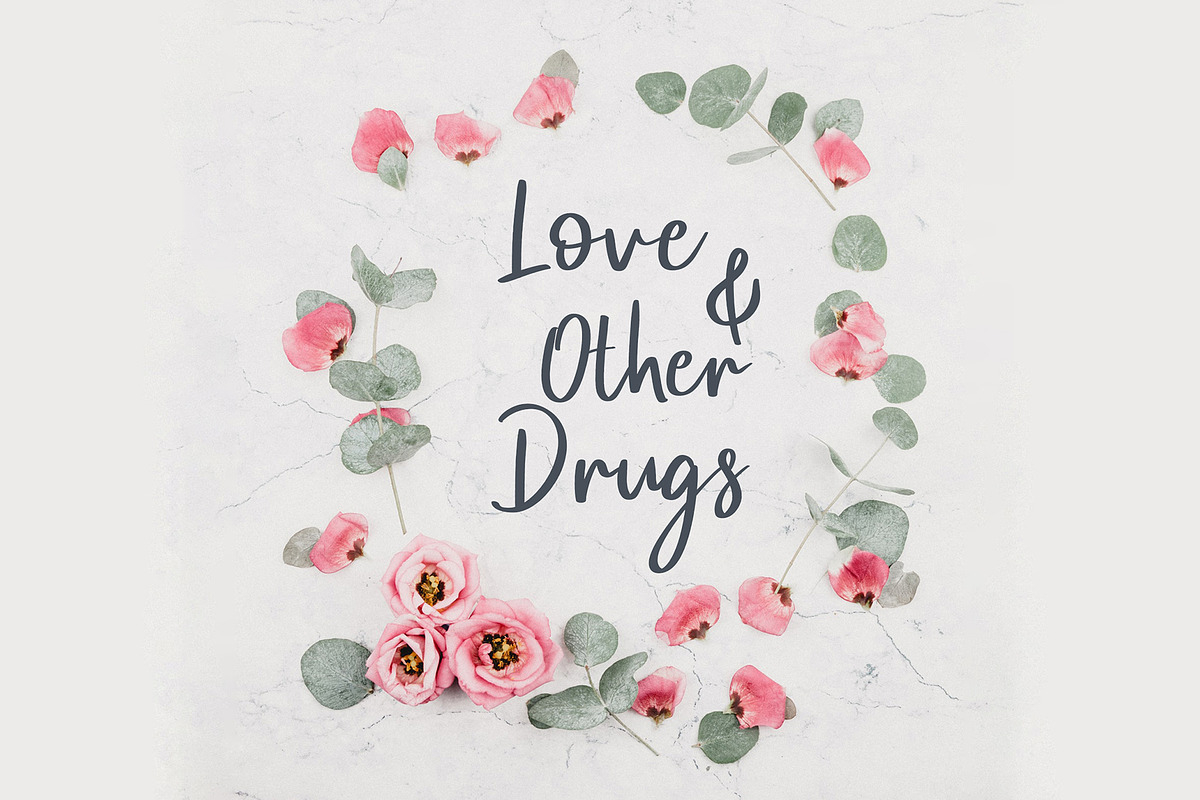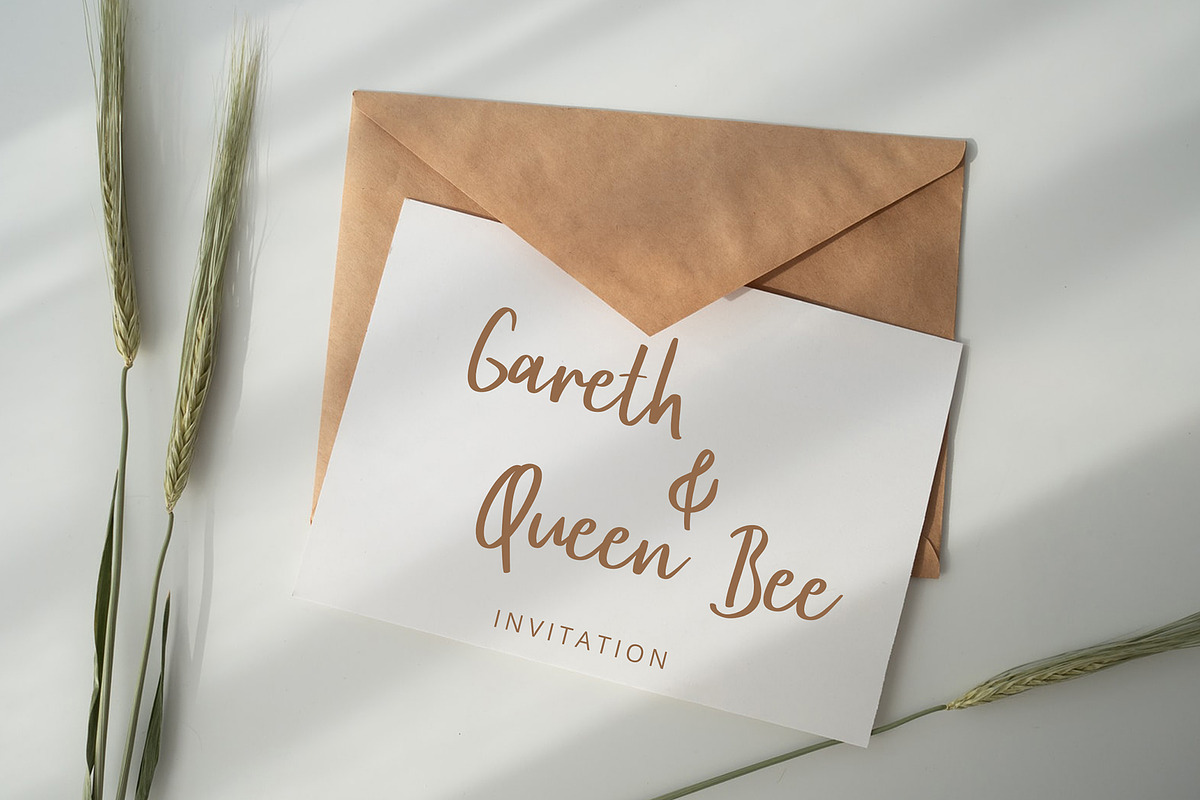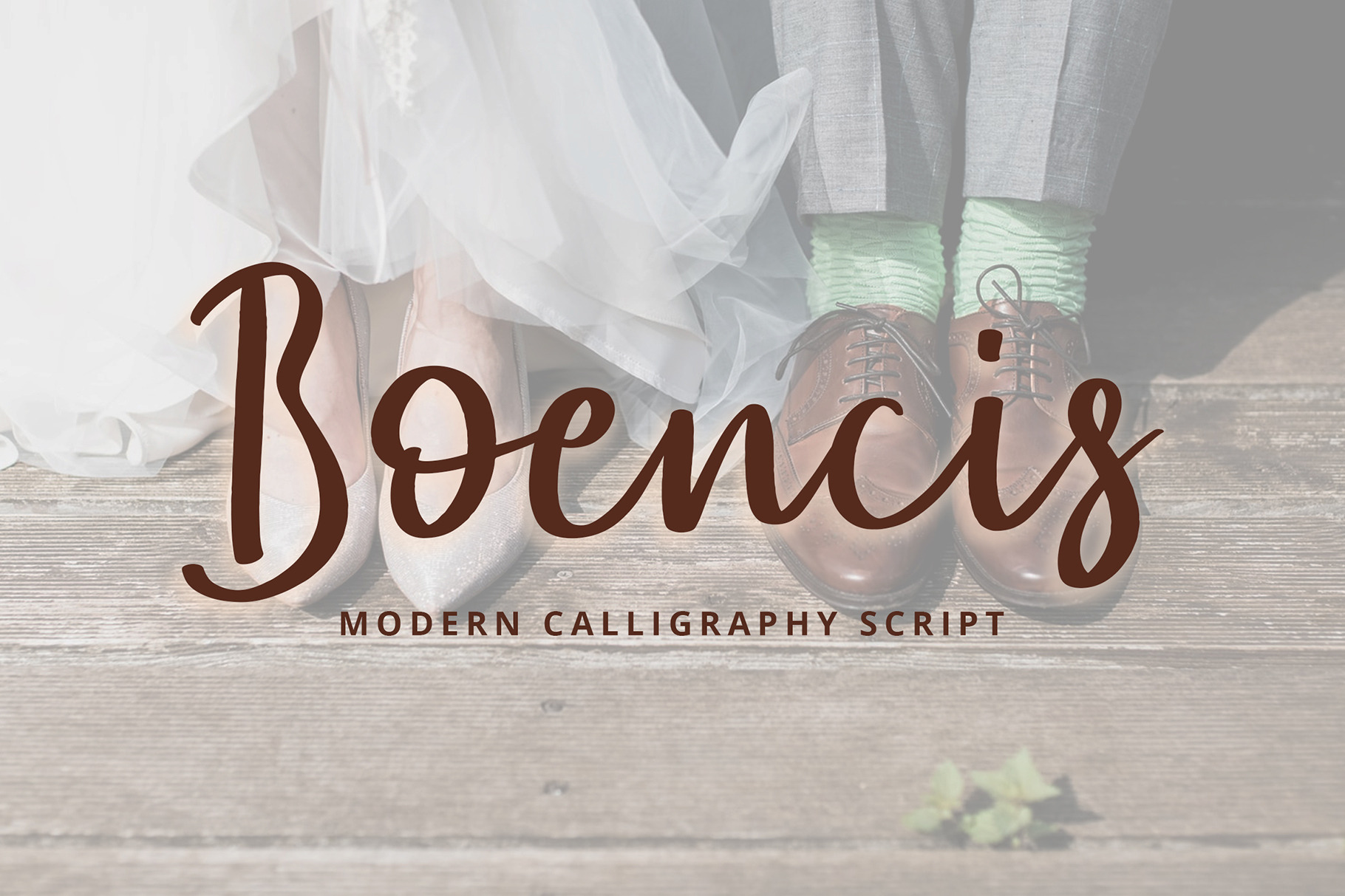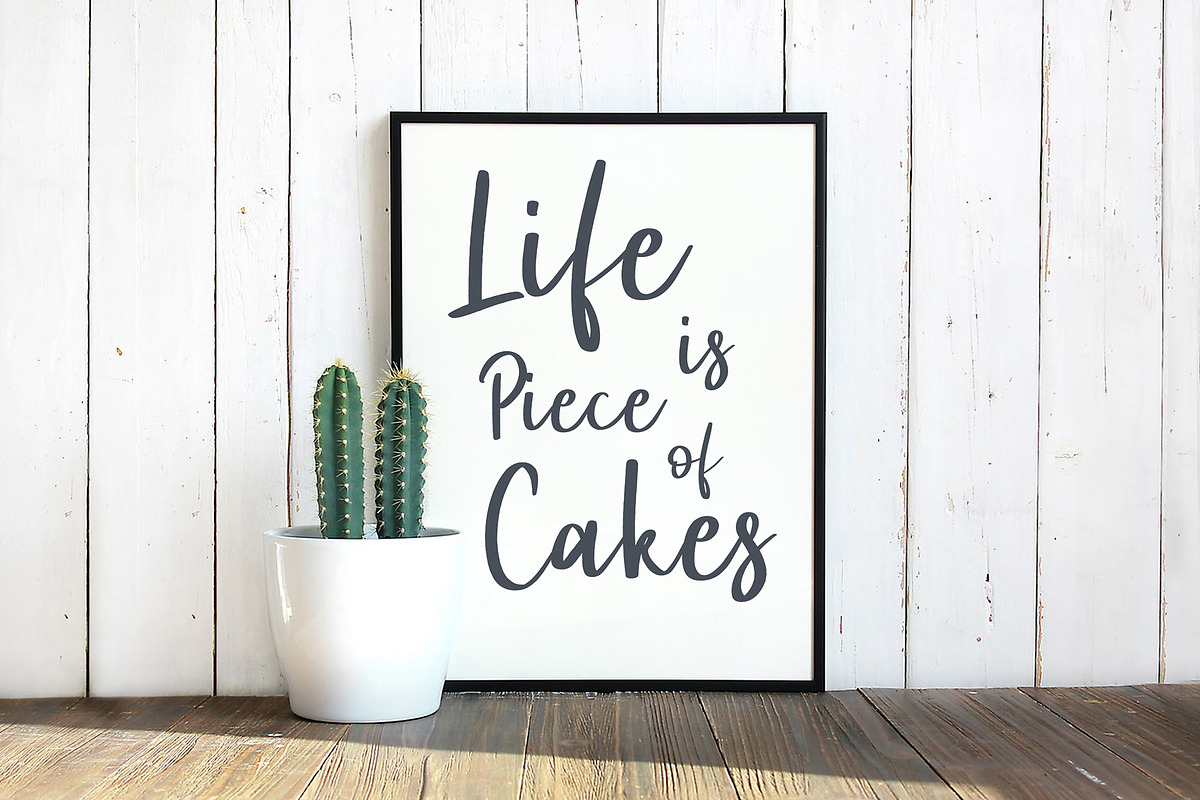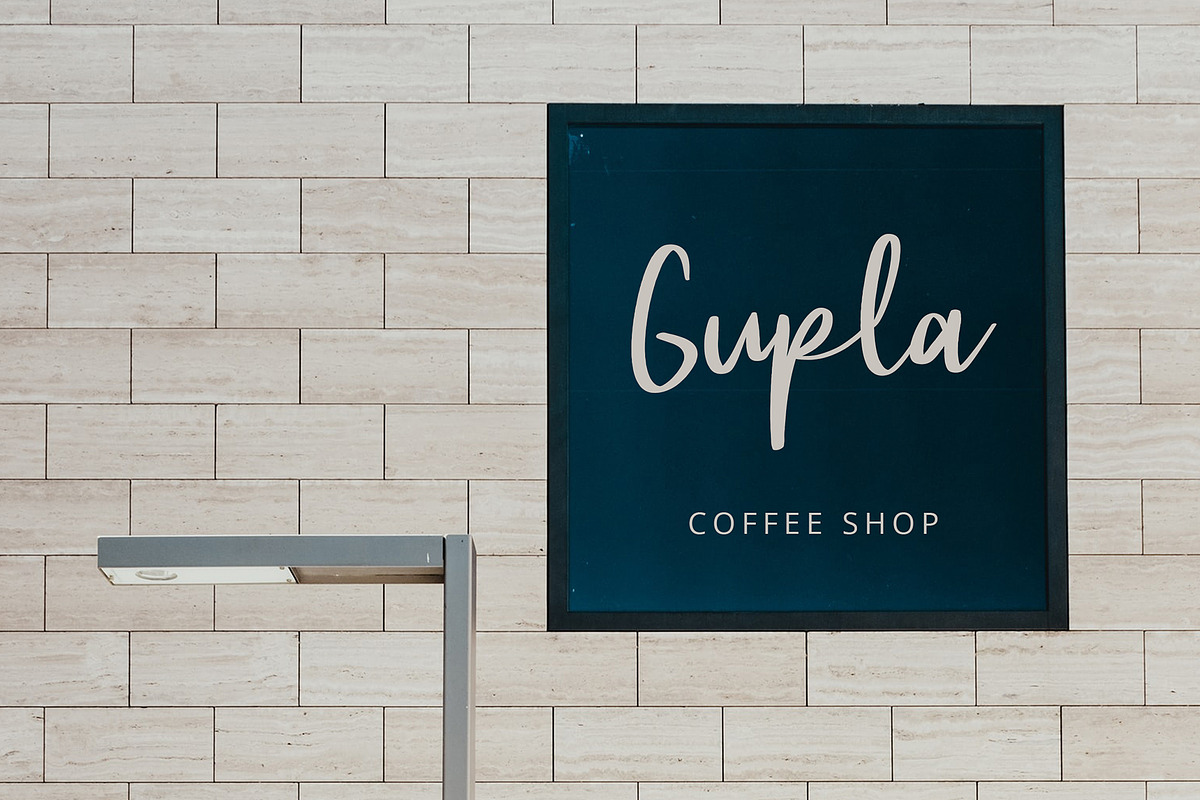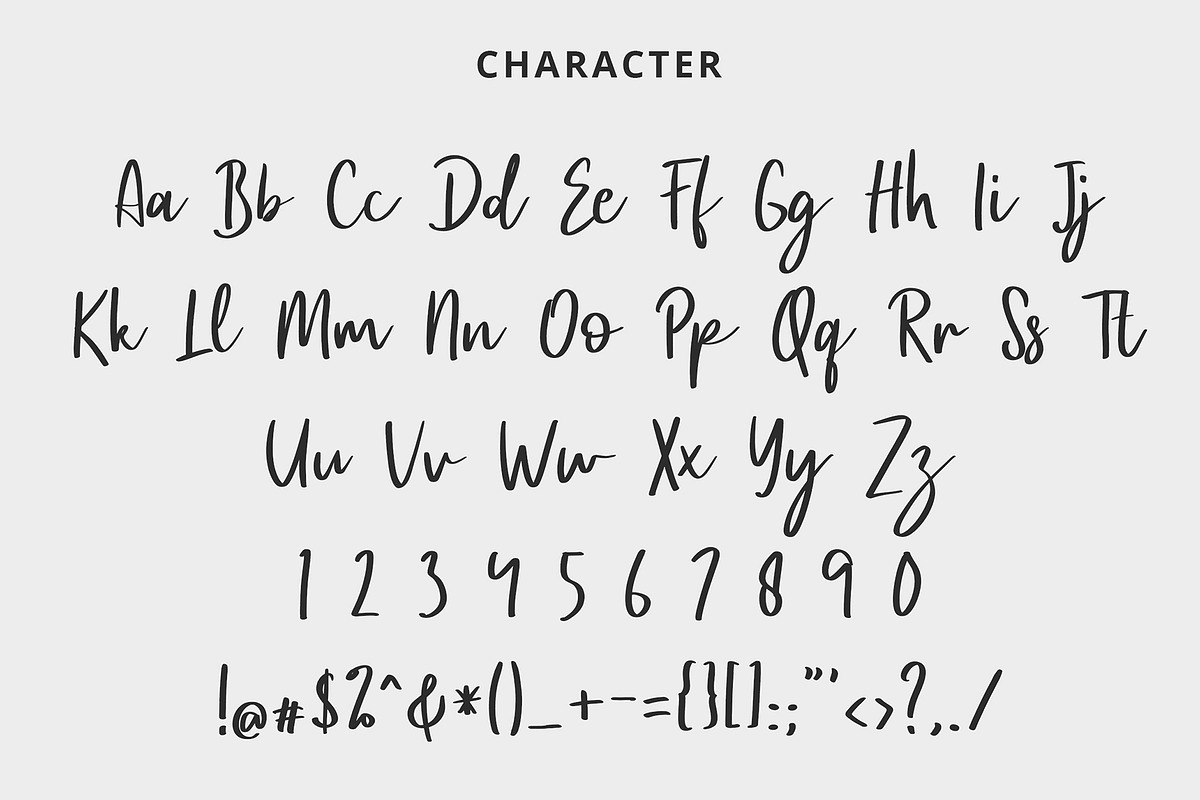
Boencis Modern Calligraphy Font
Boencis Modern Calligraphy Script Font can make your text appear elegant, luxurious, and modern!
Boencis is perfect for branding projects, logo, wedding designs, social media posts, advertisements, product packaging, tshirt design, product designs, label, photography, watermark, invitation, stationery and any projects.